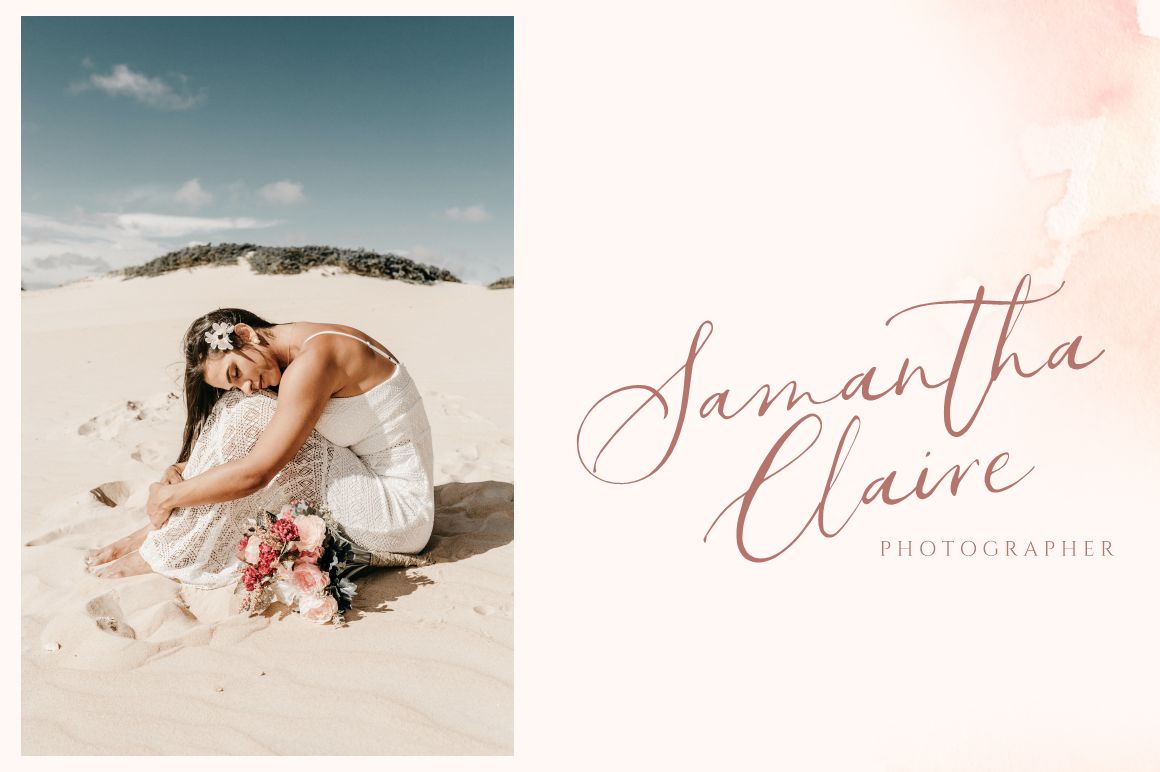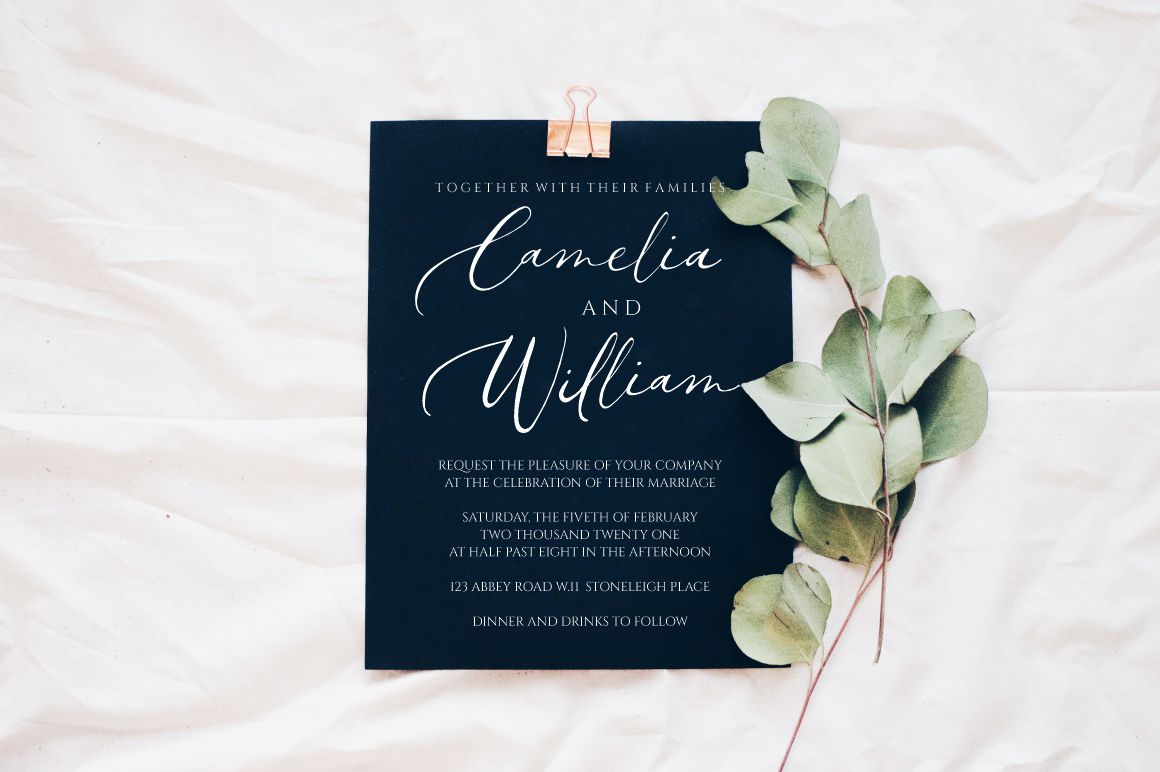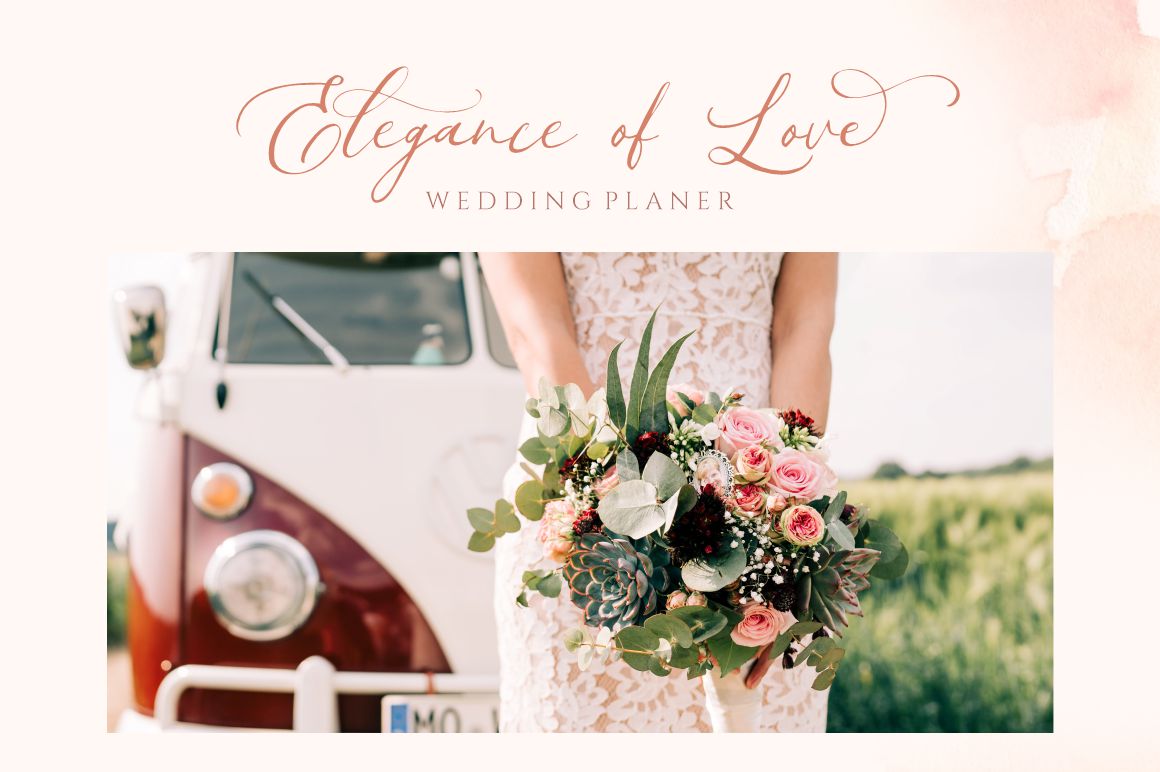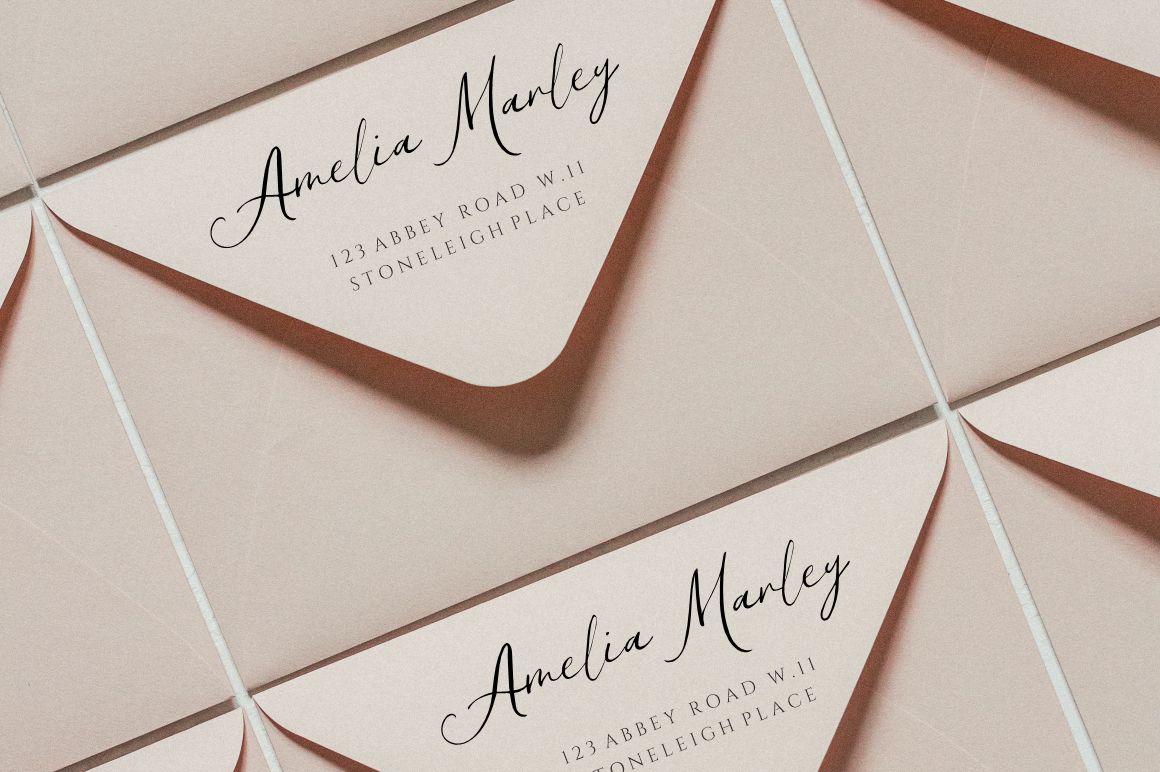
Cresie Calligraphy Font
This is a lovely and timeless handwritten font. It is the best choice for creating eye catching logos, branding and quotes. Every letter has a unique and beautiful touch, which will make your design come alive!
Cresie can be used for various projects including but not limited to wedding invitations and wedding suites, stationery, packaging, feminine branding, logos, greeting cards, quotes, and prints.